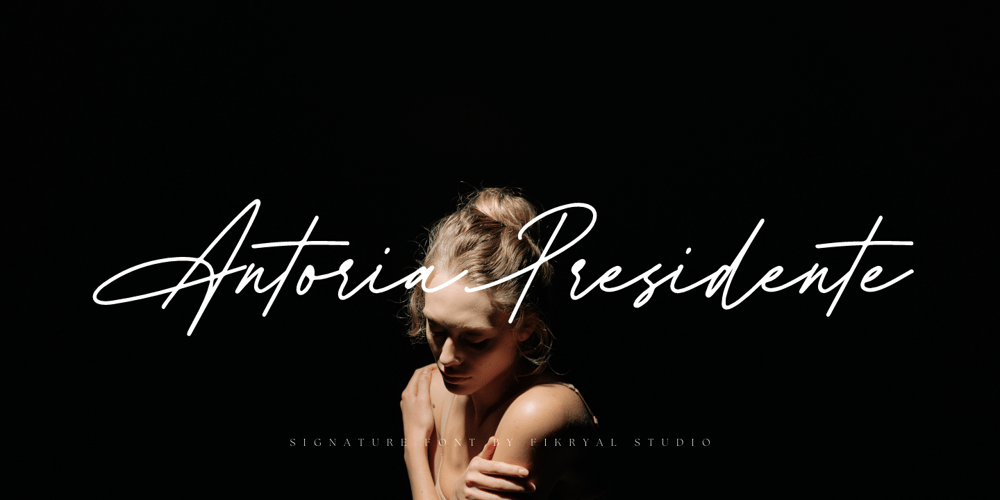
Antoria Presidente
Antoria Presidente font
Antoria Presidente Font Family was designed by Muhammad Fikry and published by Fikryal. Antoria Presidente contains 1 styles and family package options. Antoria Presidente is a signature font that exudes elegance, sophistication, and class. This font is perfect for any project that requires a touch of luxuries, such as high-end fashion branding, luxury hotel marketing materials, or high-quality product packaging. The Antoria Presidente font is designed to resemble a handwritten signature, with sweeping curves and thin strokes that create a sense of fluidity and movement. Its tall, elongated letters are reminiscent of vintage calligraphy, while its clean, modern lines give it a contemporary feel. The font is highly versatile and can be used for a variety of purposes, including logos, headlines, titles, and body text. Its bold, expressive style makes it ideal for creating eye-catching designs that grab attention and leave a lasting impression. If you have any questions please don’t hesitate to contact me.Thank youbest regards,Fikryal Studio